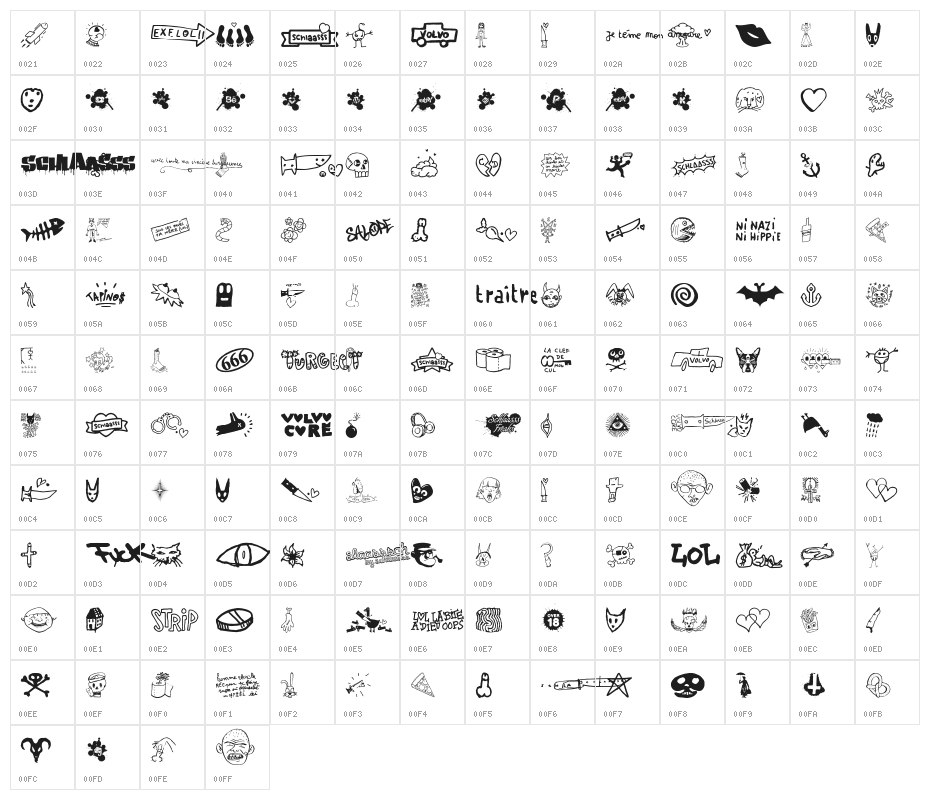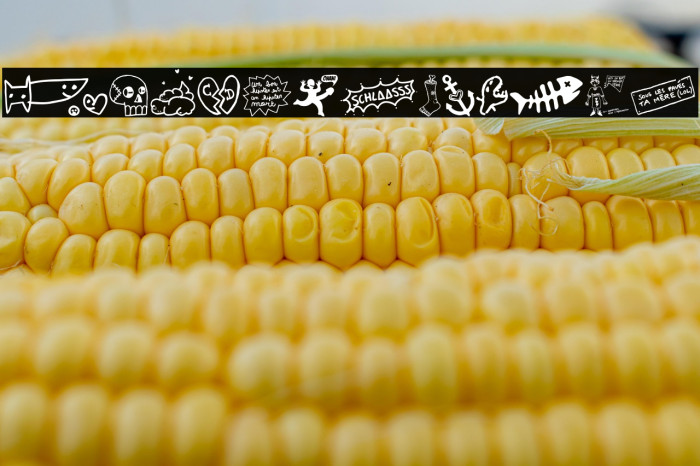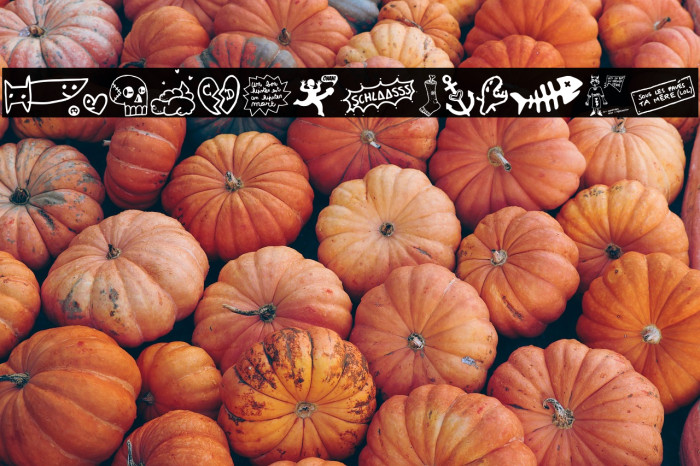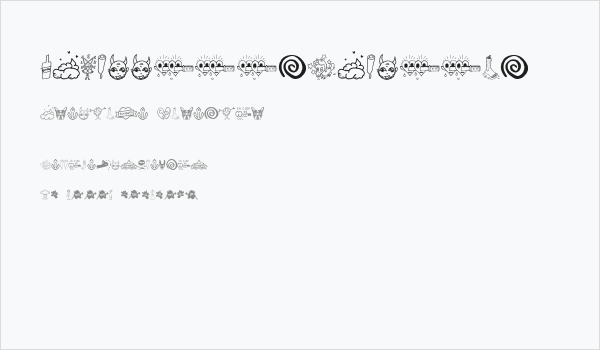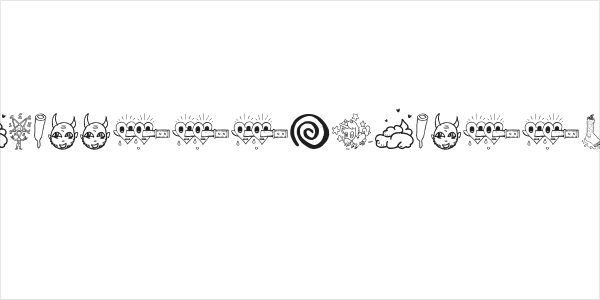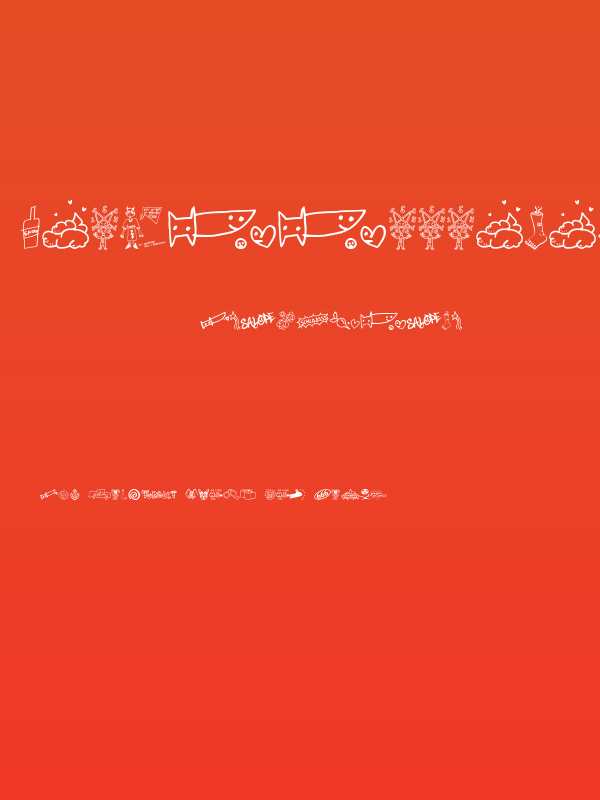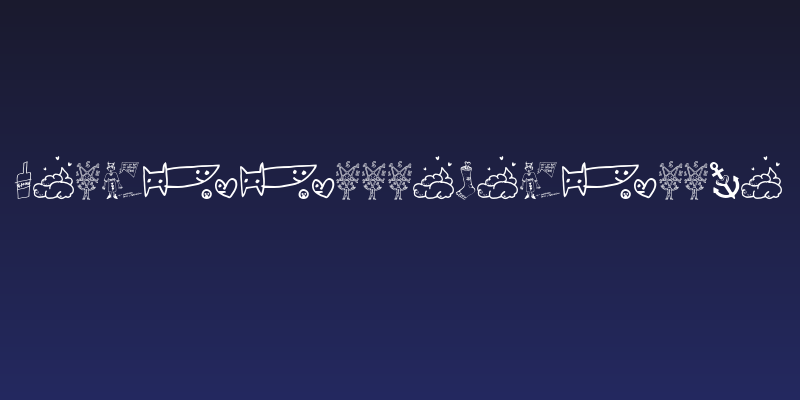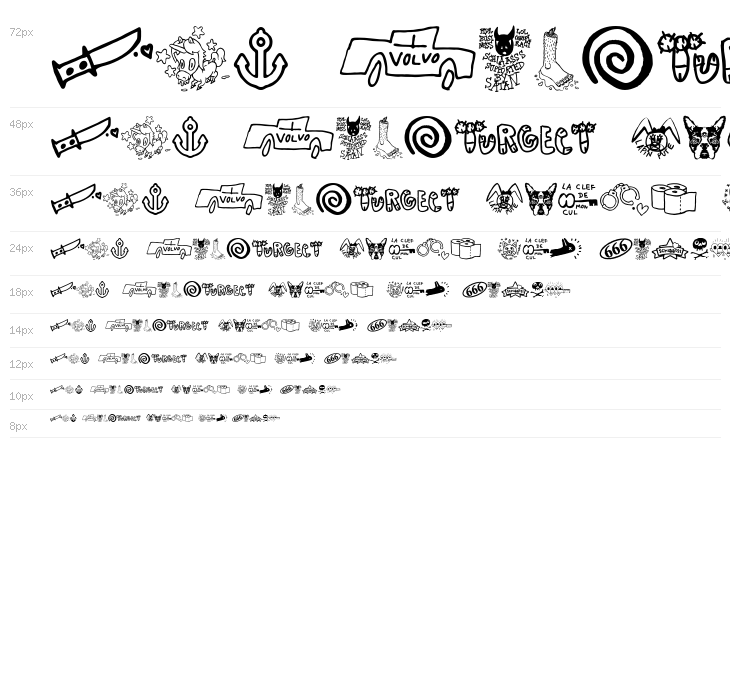
WCSlaassschClassic Font
WCSlaassschClassic Description
A highly decorative and illustrative font composed of hand-drawn doodles, symbols, and playful sketches, each character replaced by a unique cartoon or graffiti-style image. The style is informal, whimsical, and expressive, with a mix of thick and thin strokes and a variety of visual motifs.
| Overall Style | Decorative, Playful, Graffiti, Hand-drawn |
| Use Case | Logos, Posters, Headlines, Art projects |
| Proposed Projects | ChildrenΓ’β¬β’s books, posters, zines, party invitations, album covers, creative branding, comics. |